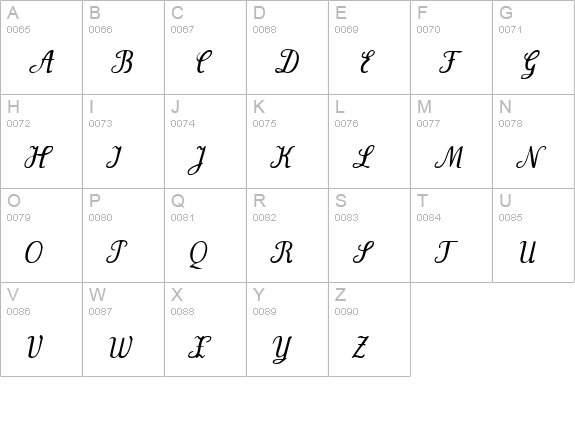
Wenceslas-Oblique Font Details
Wenceslas-Oblique is a distinctive, italic variant in the Wenceslas typeface family \xE2\x80\x94 well suited to design and typography projects.
Wenceslas-Oblique font is a stunning display font that exudes elegance and sophistication. Its unique slanted design adds a touch of modernity to any project, making it perfect for luxury branding, editorial design, and eye-catching headlines. This font features perfectly curved lines and carefully crafted letterforms that effortlessly blend together, creating a harmonious and visually pleasing aesthetic. The oblique style adds a sense of movement and dynamism, making Wenceslas-Oblique font a standout choice for projects that require a touch of creativity and flair. One of the most appealing aspects of Wenceslas-Oblique font is that it is freely available to download at FontsMarket.com. This means that designers, creatives, and enthusiasts alike can easily access and incorporate this remarkable font into their work without any cost. Whether you are working on a logo design, packaging, or a magazine spread, Wenceslas-Oblique font will undoubtedly make a lasting impression. Its versatility allows it to be used in various contexts, adapting effortlessly to different design styles and themes. With its wide range of characters, including uppercase and lowercase letters, numerals, and punctuation marks, Wenceslas-Oblique font offers endless possibilities for creative expression. Its clean and legible design ensures readability, even at smaller sizes, guaranteeing that your message will be conveyed with clarity and impact. Experience the beauty and flexibility of Wenceslas-Oblique font today. Download it for free at FontsMarket.com and elevate your design projects to new heights.